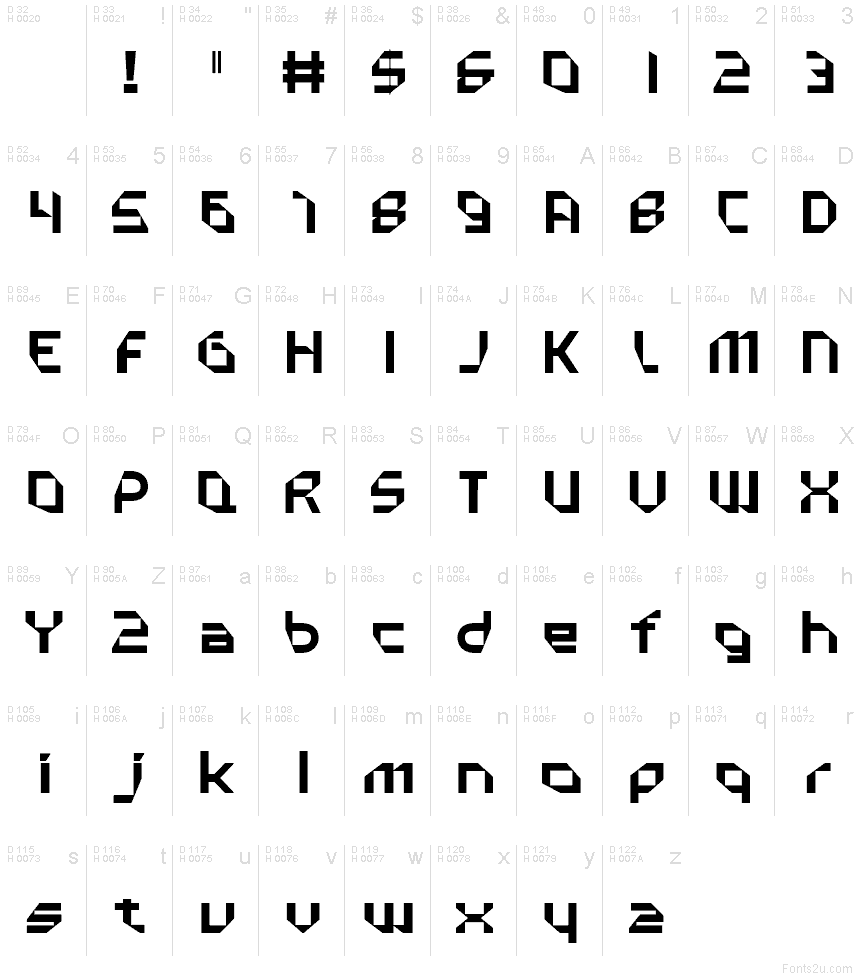
Prox Yo
Prox Yo font by Ffeeaarr is a futuristic display typeface with a modern aesthetic. Featuring sharp angles and clean lines, this digital style font delivers an expanded look that champions a geometric appeal perfect for eye-catching headlines.